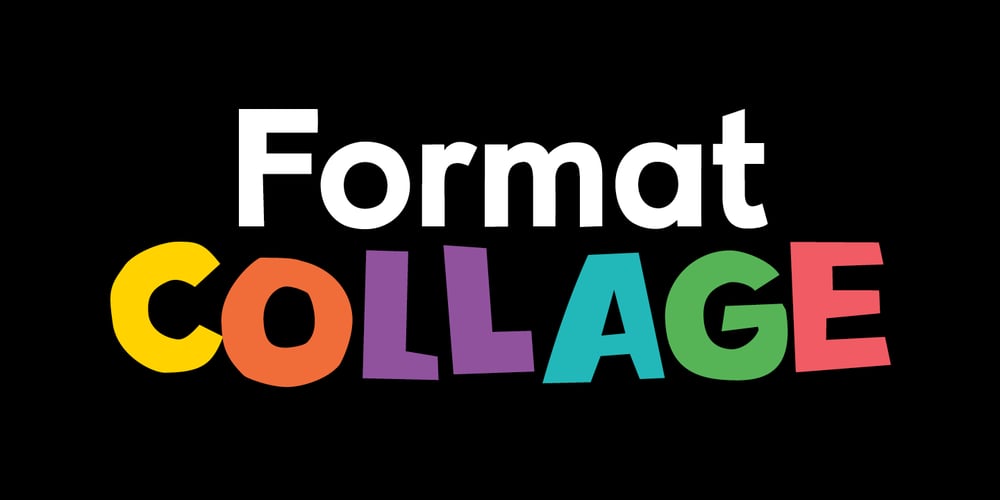
-OC Format Collage Font Family was designed by Andrew Bellamy and published by OtherwhereCollective. -OC Format Collage contains 13 styles and family package options. -OC Format Collage (built on the previously N?1 ranked font -OC Format Sans Bd), is a variable font design inspired by the cut and paste techniques of illustrators Eric Carle and Lois Ehlert. With 3 axes?Cutout, Jumble & Scatter?the type can seamlessly be changed from the elegant geometric sans serif to one with apparently hand cut, hand pasted characters that feel more human. Incredibly versatile the font is ideal for text and display making it perfect for packaging, publishing, posters and digital design requiring readability and a natural and approachable imperfection.Static font files are also available:? T1-6 (Text) fonts only adjust the cutout technique and the characters of the type stay upright and sit on the baseline.? D1-6 (Display) adjust all 3 axes with characters randomly changing angles and position relative to the baseline.OpenType features:-OC Format Collage boasts numerous features to enhance the hand finished effect with multiple alternate options and double character ligatures so characters aren’t repeated within the same word. The design also supports multiple languages, includes standard and discretionary ligatures, circled figures and extensive symbol sets.